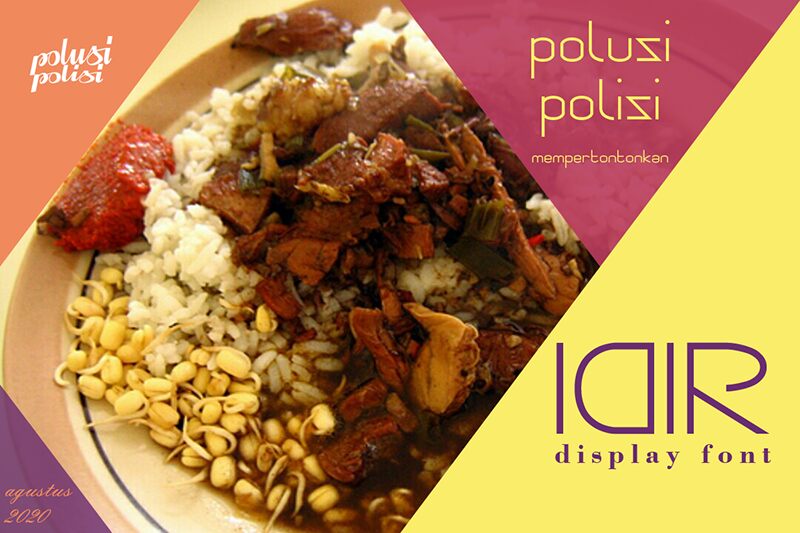
Icir font family designed by polusi polisi is a futuristic font family with clean geometric shapes. All of the 2 font styles contained are contemporary, minimalist, and unconventional. The font family can be used in any of the use cases described below to create interesting clean designs that draw attention immediately.
The style of this font set compliments digital media and branding designs in the tech industry. You can use it in logos, headlines, posters, pamphlets, magazines, books, packaging, exhibitions, or video games. Any fictional, fantasy, or scientific project will also benefit from using these fonts.
Icir is a display font characterized by its simple lines, exuding a cryptic and modern aesthetic. This versatile font is ideal for various applications, including logo design, media, mobile apps, social media, website design, and YouTube videos.
Features of Icir:
- Uppercase letters
- Lowercase letters
- Numbers
- Punctuation